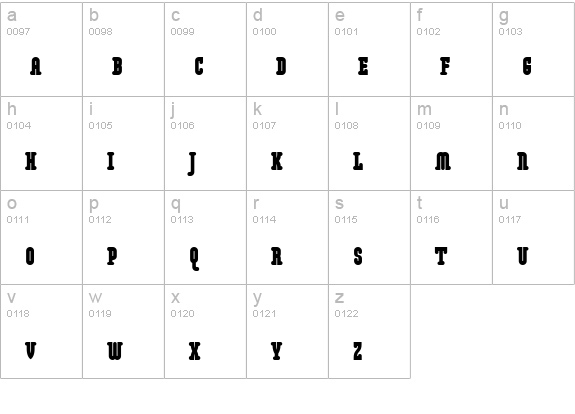
ModulaRoundSerifUltraSmCap Regular Font Details
ModulaRoundSerifUltraSmCap Regular is the standard, neutral variant in the ModulaRoundSerifUltraSmCap typeface family \xE2\x80\x94 well suited to general body text, paragraphs, and standard typographic work.
ModulaRoundSerifUltraSmCap Regular is a sophisticated and elegant font with a touch of playfulness. Its rounded serifs give it a unique and modern look, making it perfect for a wide range of design projects. This font exudes professionalism and style, making it ideal for branding, editorial design, and more. The ModulaRoundSerifUltraSmCap Regular font is available for free download at FontsMarket.com, making it easily accessible for designers looking to add a touch of class to their projects. With its clean lines and subtle curves, this font is sure to make a statement and elevate any design it is used in. Get your hands on this exquisite font today and take your design projects to the next level.